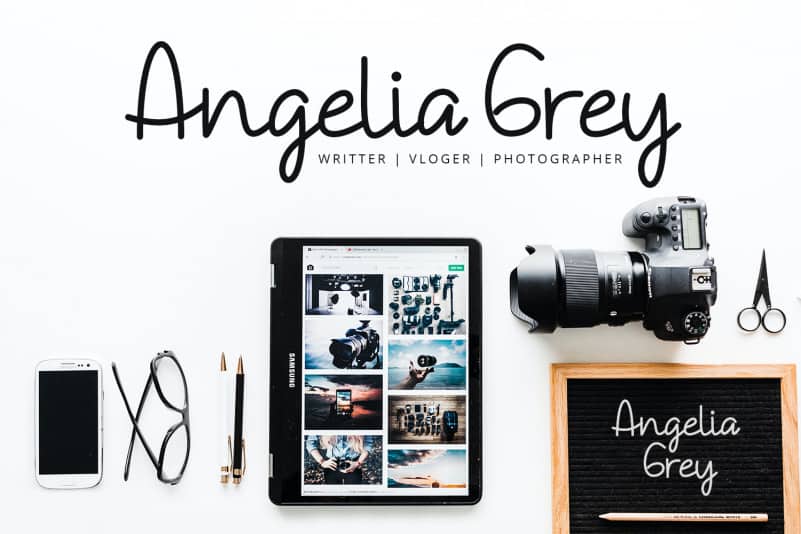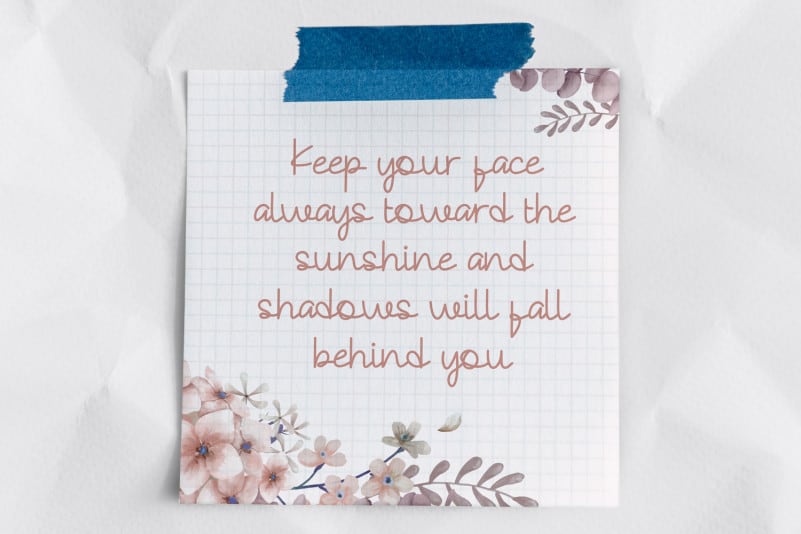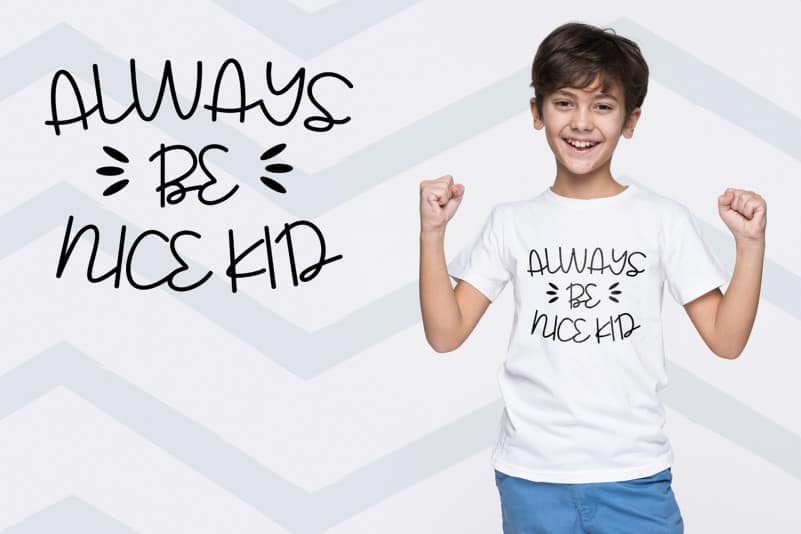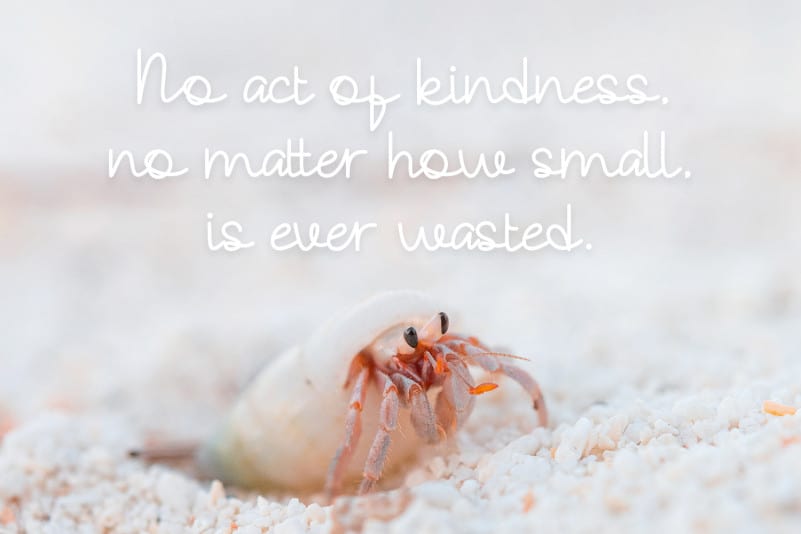
Replay Time Handwritten Font is a stunning Handwritten style font with authentic and casual feels. It will be perfectly used for Branding, Logo Design, Lettering, Logotype, Clothing, Poster, magazine, packaging, posters, shopping bags, t-shirts, book covers, photography, special events and other design project.